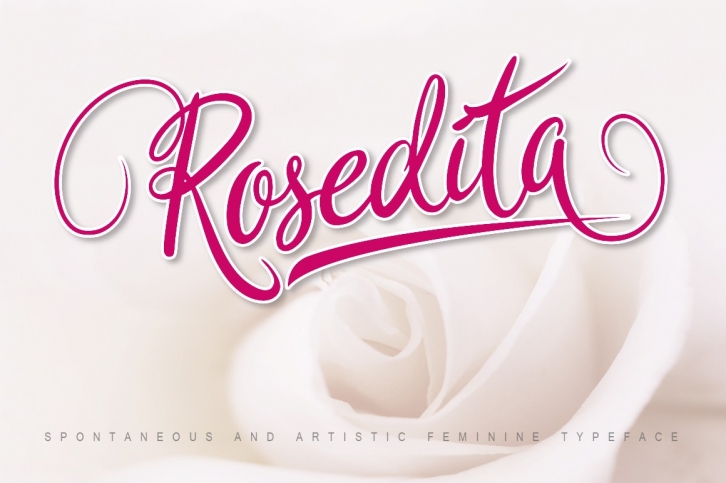
Rosedita Script is a trendy and unique font with an authentic style. It was designed by Cove703 and it's a great choice for creative people who need such a font. It was released on August 19, 2017 and the file size is 1.24 MB. Rosedita Script will add an organic vibe to any design idea!